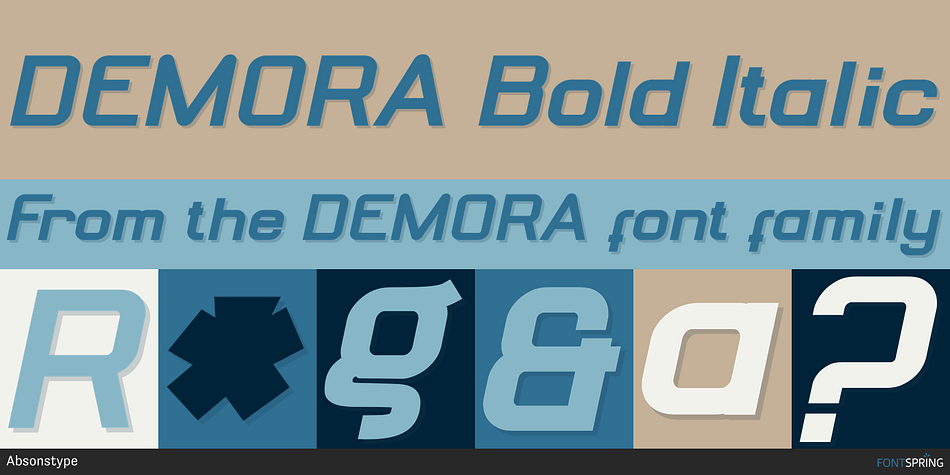
DEMORA Bold Italic
Designed by Sarwo Prayitno, DEMORA is a sans serif font family. This typeface has six styles and was published by Absonstype.
DEMORA is the sporty sans serif style with uppercase and lowercase looks and feel nice balanced. Provide alternates and ligatures variant style make the design letter looks nice. Honestly it works perfectly for headlines, logos, posters, packaging, T-shirts and much more.
Font Features :
-  Regular and Italic version
-  Character set A-Z in all caps style
-  Alternates
-  Ligatures
-  Numerals & Punctuation
-  Accented Characters
-  Multiple Languages Supported